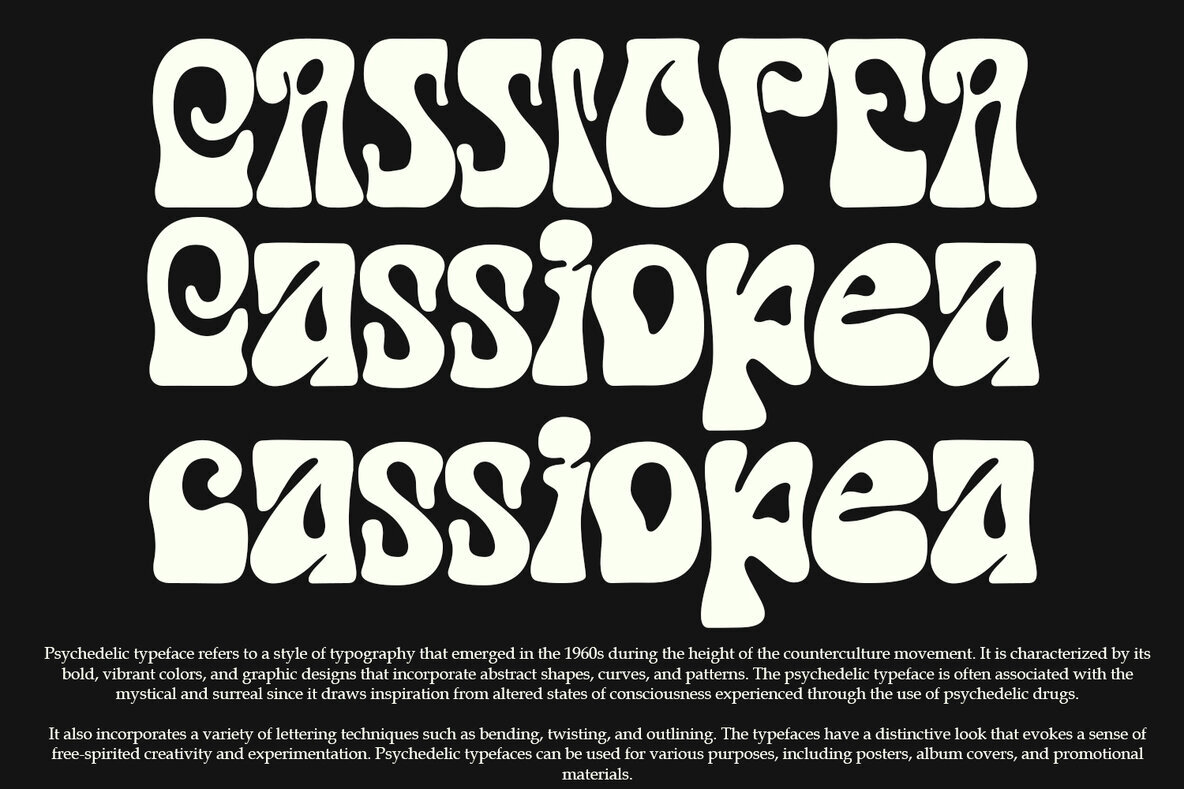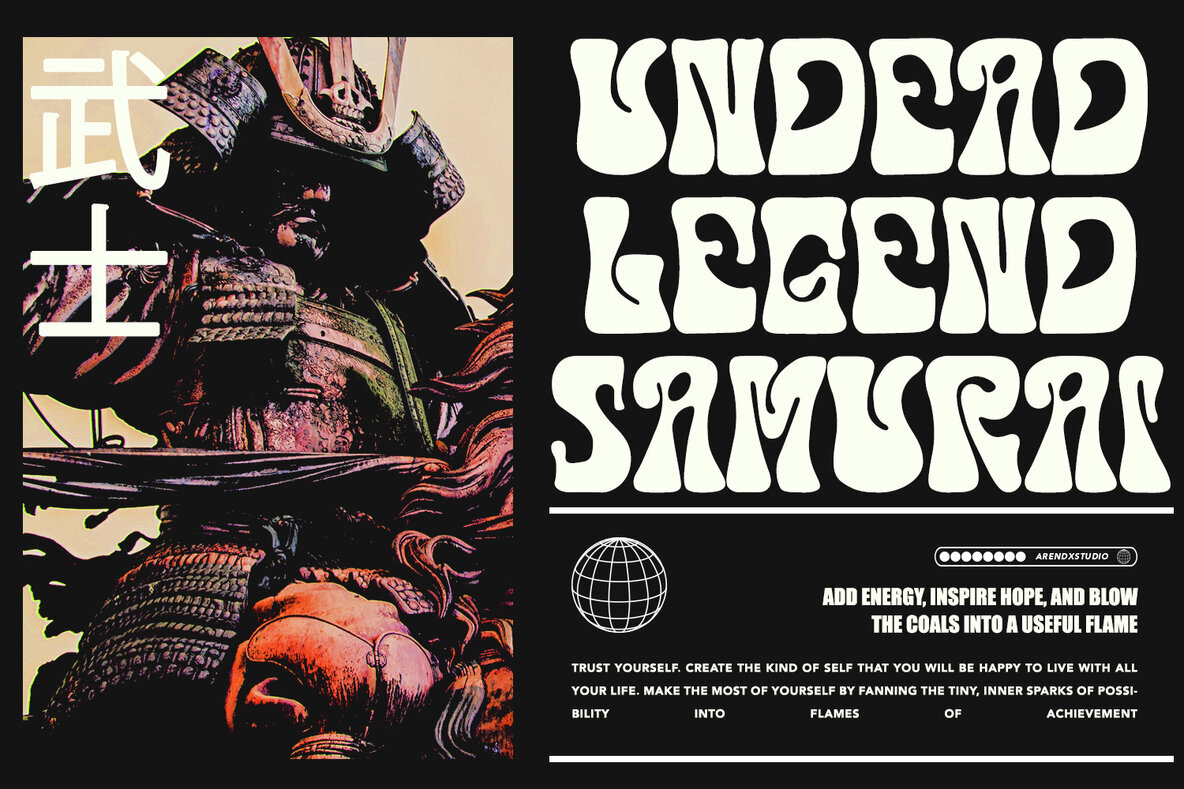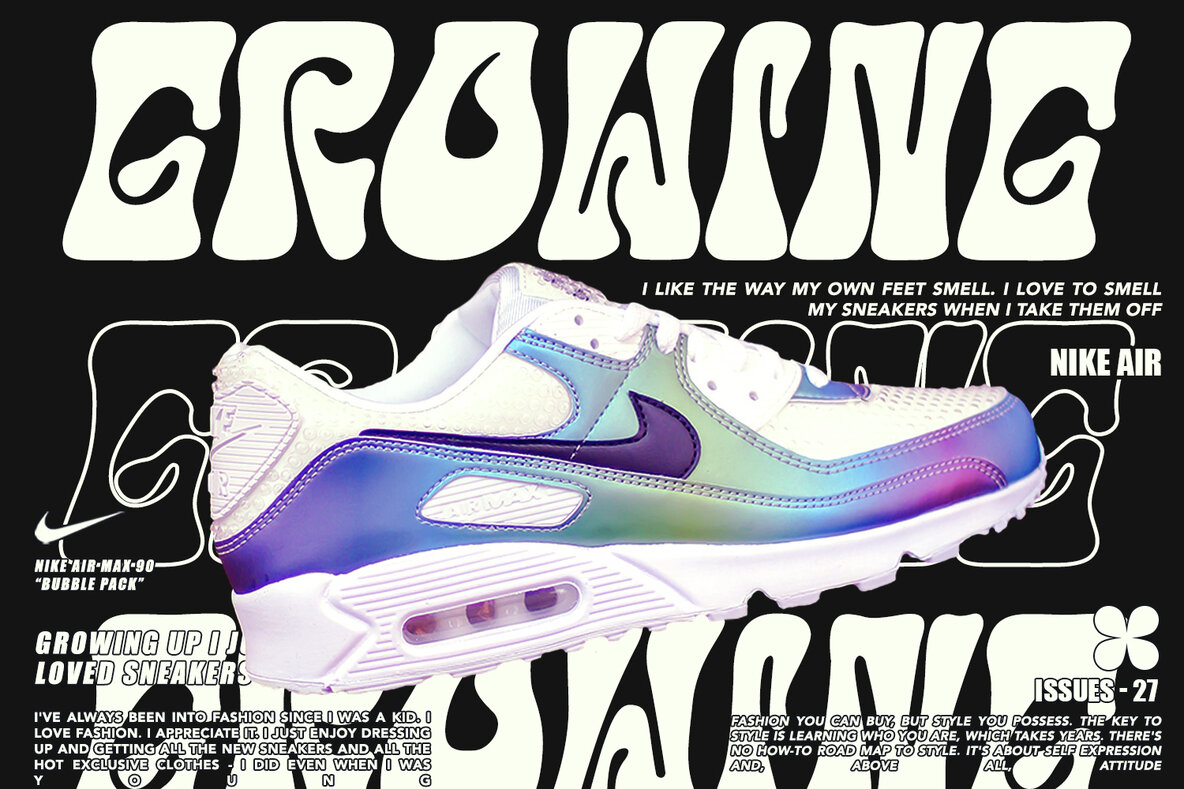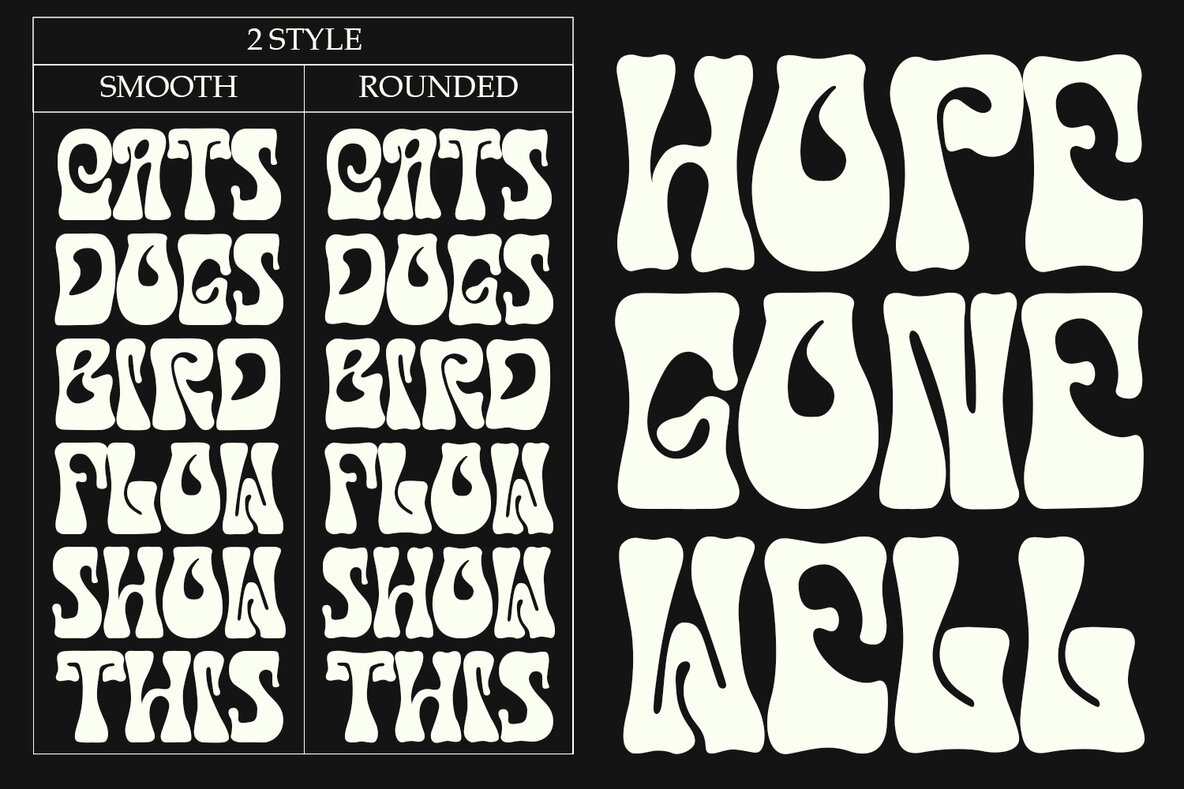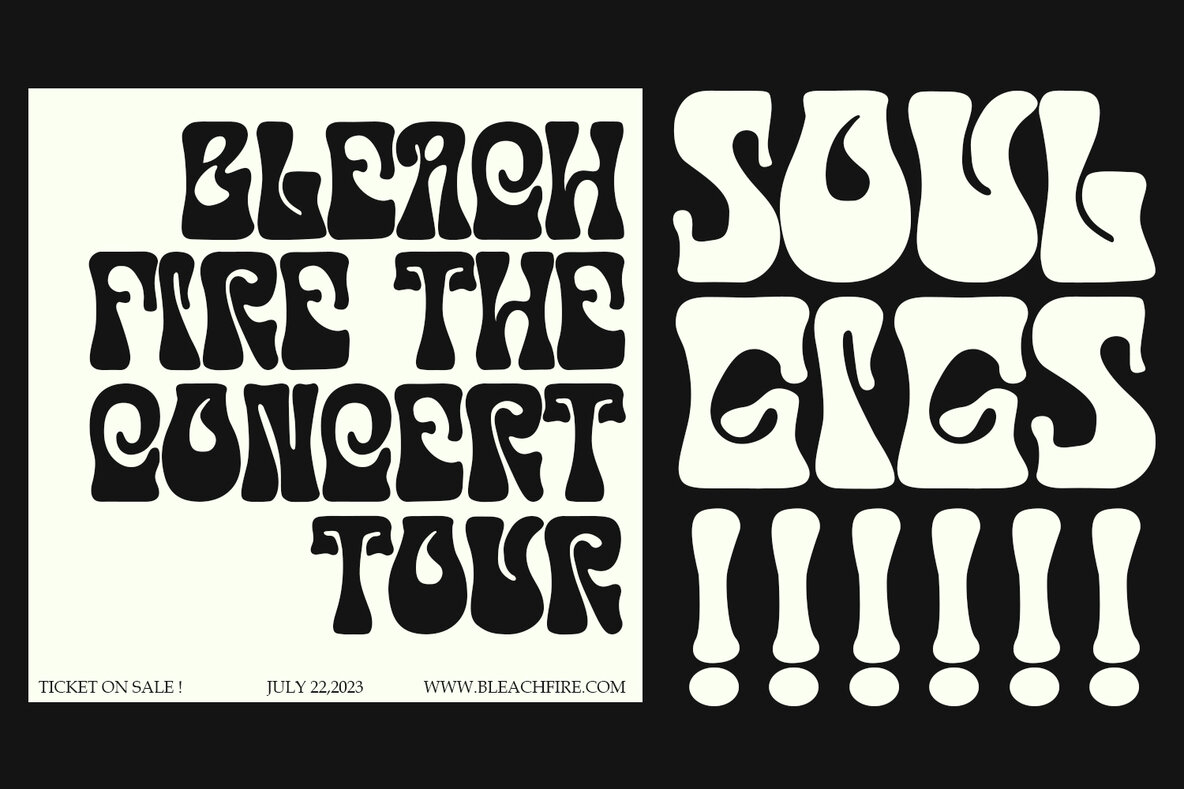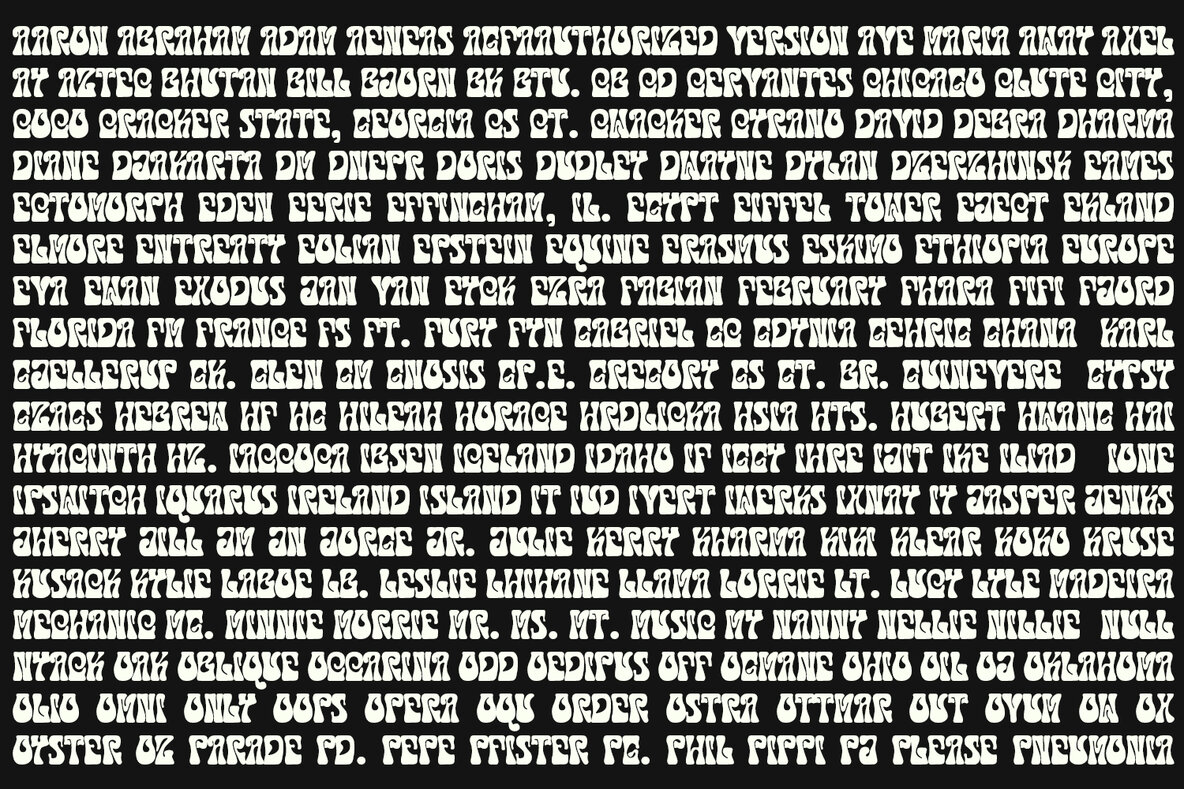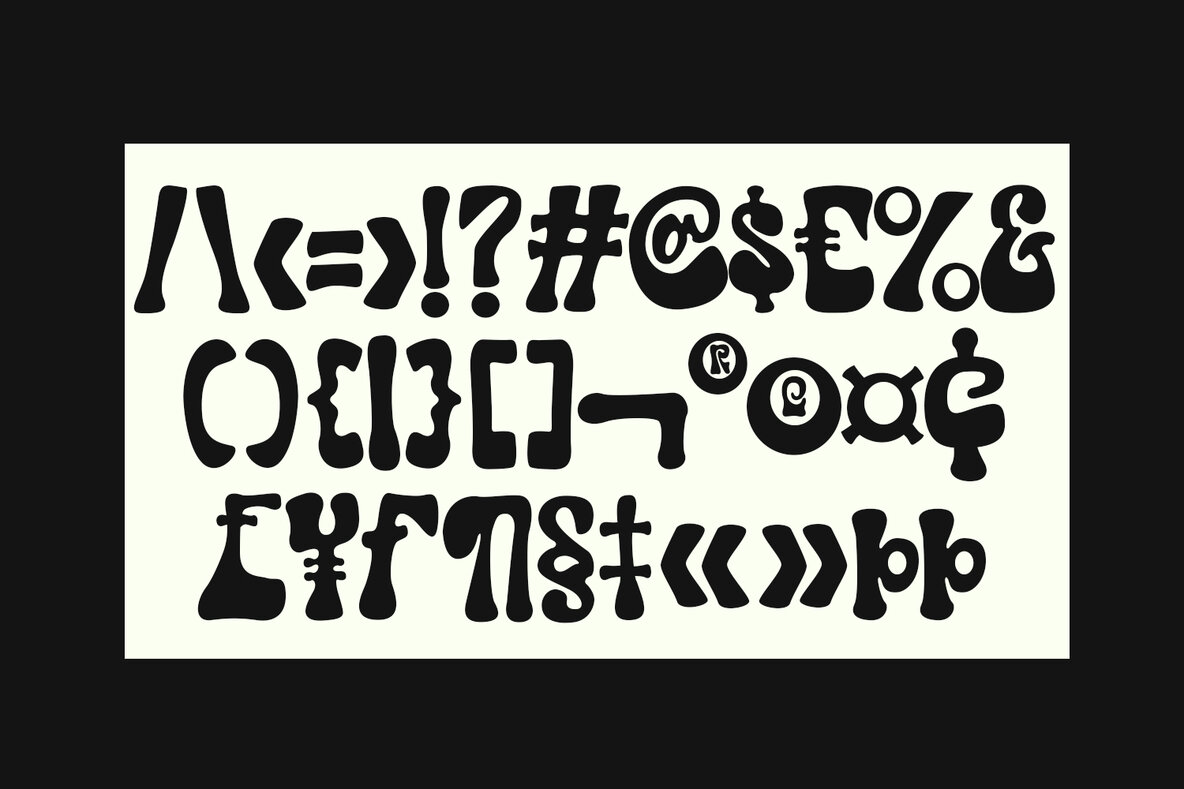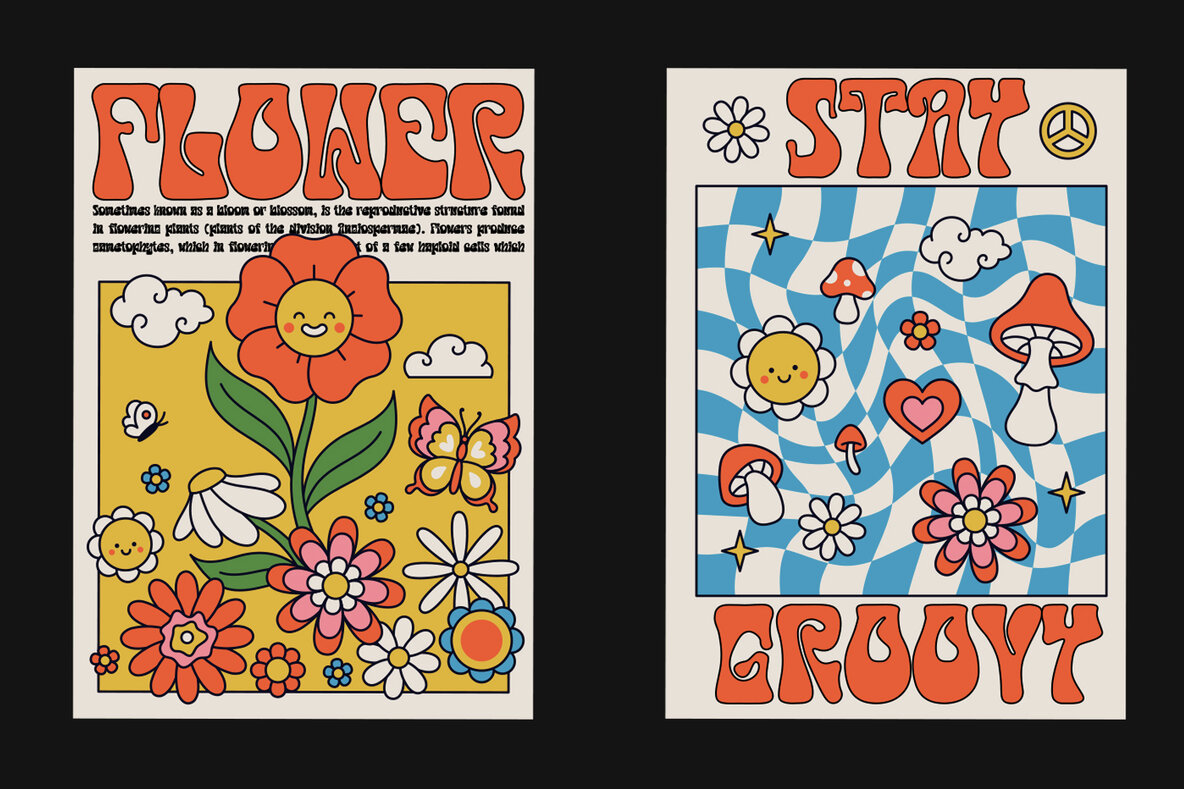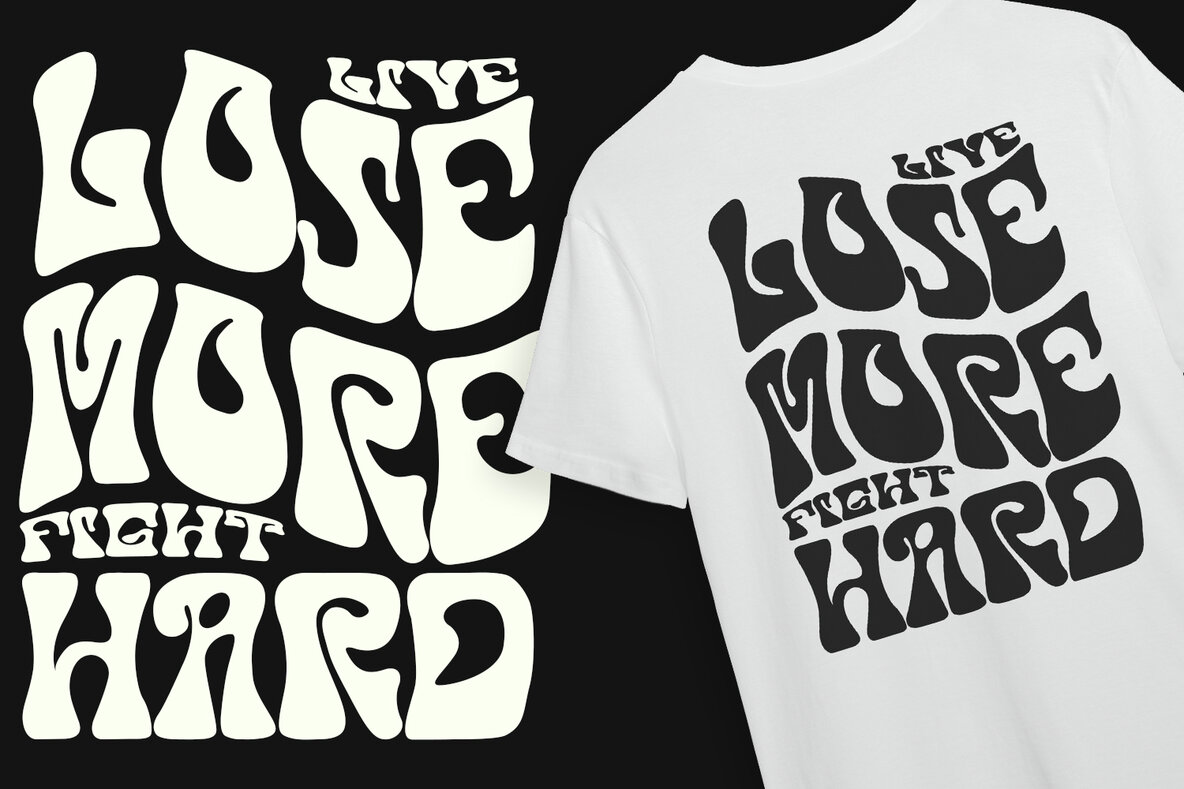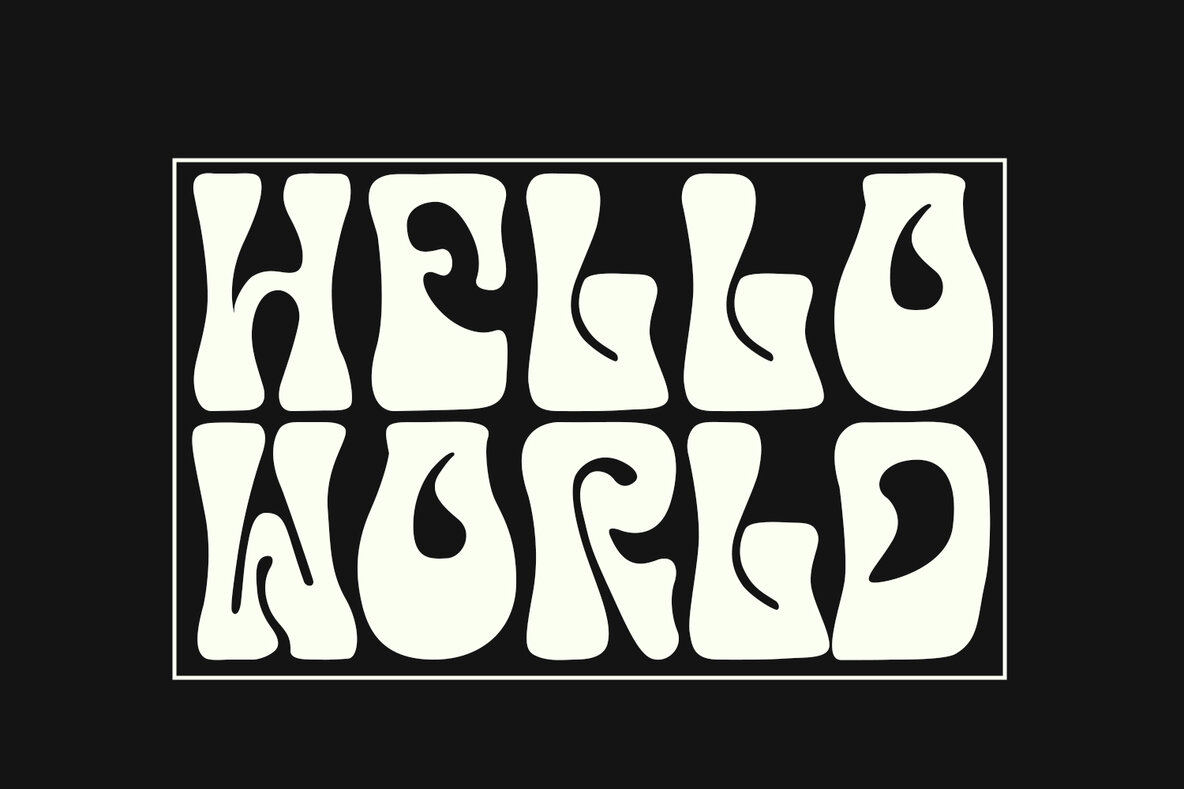
Cassiopea Font
Cassiopea is Psychedelic typeface refers to a style of typography that emerged in the 1960s during the height of the counterculture movement. It is characterized by its bold, vibrant colors, and graphic designs that incorporate abstract shapes, curves, and patterns. The psychedelic typeface is often associated with the mystical and surreal since it draws inspiration from altered states of consciousness experienced through the use of psychedelic drugs. It also incorporates a variety of lettering techniques such as bending, twisting, and outlining. The typefaces have a distinctive look that evokes a sense of free-spirited creativity and experimentation. Psychedelic typefaces can be used for various purposes, including posters, album covers, and promotional materials. To sum it up, psychedelic typeface is a unique style of typography that was popularized during the 1960s and is still relevant today. It incorporates bold colors, graphic designs, and a range of lettering techniques that create an eye-catching and trippy aesthetic. It is a testament to the counterculture movement and the power of artistic expression.